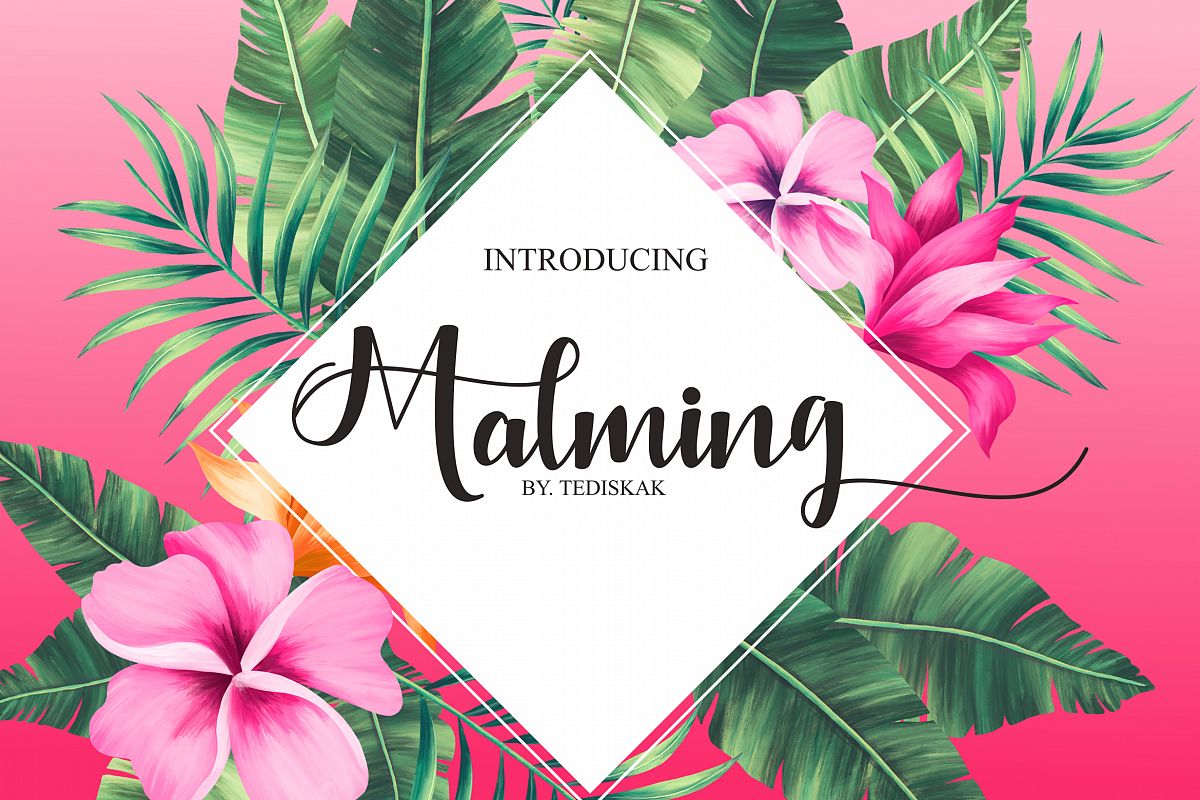
Malming
Introduce, this is our newest product, we call it
this product is a Malming Font. Malming Fonts are modern fonts, with a touch
sweet and beautiful shape on each letter.
A very good Malming font to use on:
fashion magazines, logos, what includes:
- Stylistic Substitute
- ligatures
- Stylistic set
- multilingual support